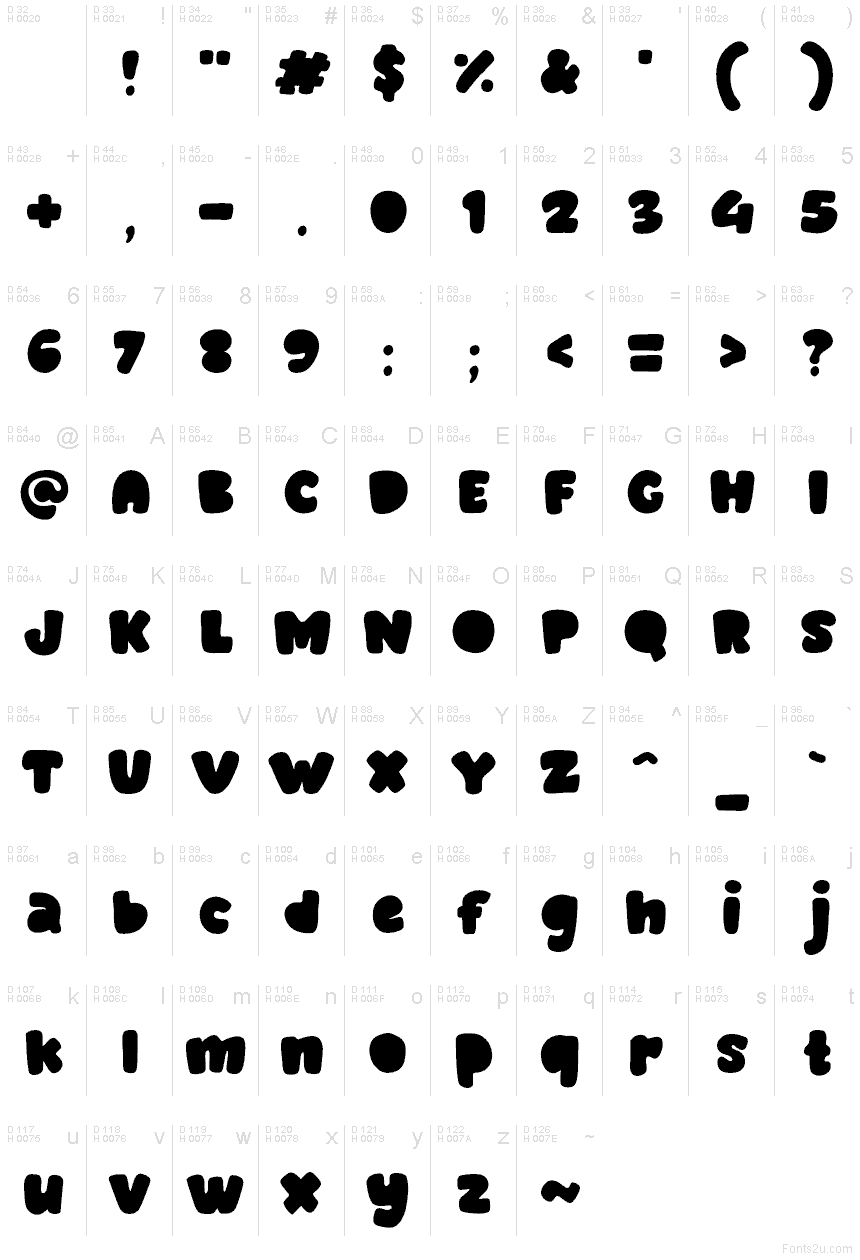
Mickly Frog
Mickly Frog font is a cartoonish display type designed by MJType with a delightful childlike essence. The bold font has organic shapes and informal styles with rounded forms to finish off the design. The casual letters naturally convey a friendly mood useful for projects targeting younger audiences.
Completely free, the item can enhance wrapping paper, kids’ learning and reading books, birthday cards, and game applications. It can also be used in puzzles (online or printed), candies packaging design, comics/ animations subtitles, coloring pages headlines, copybooks cover titles, nursery wallpaper themes, toy branding plus other similar projects and purposes.